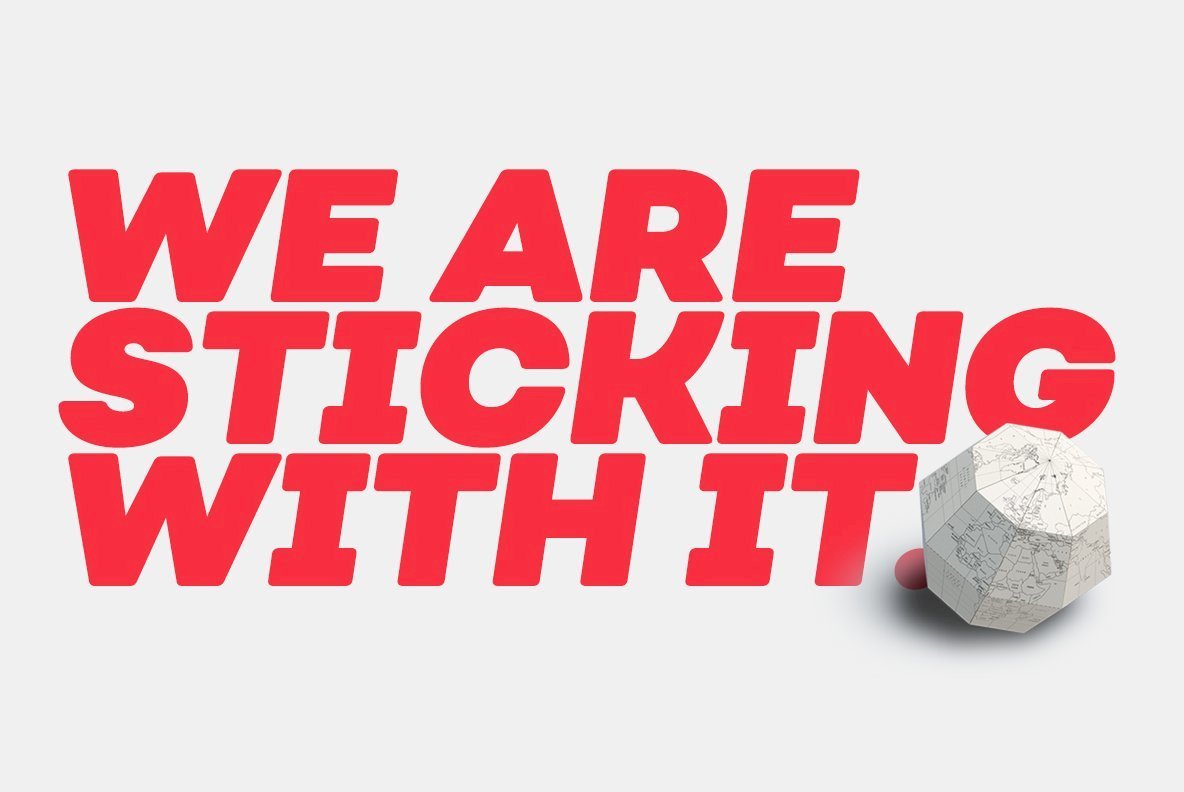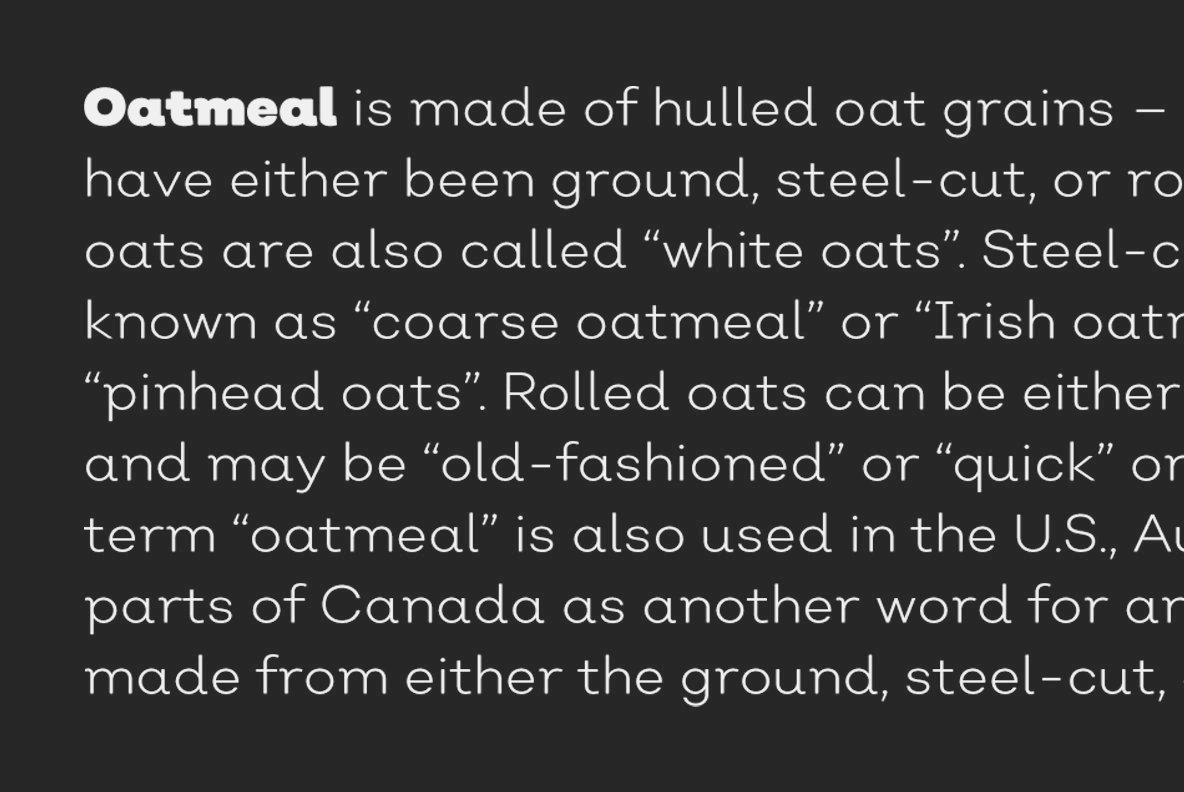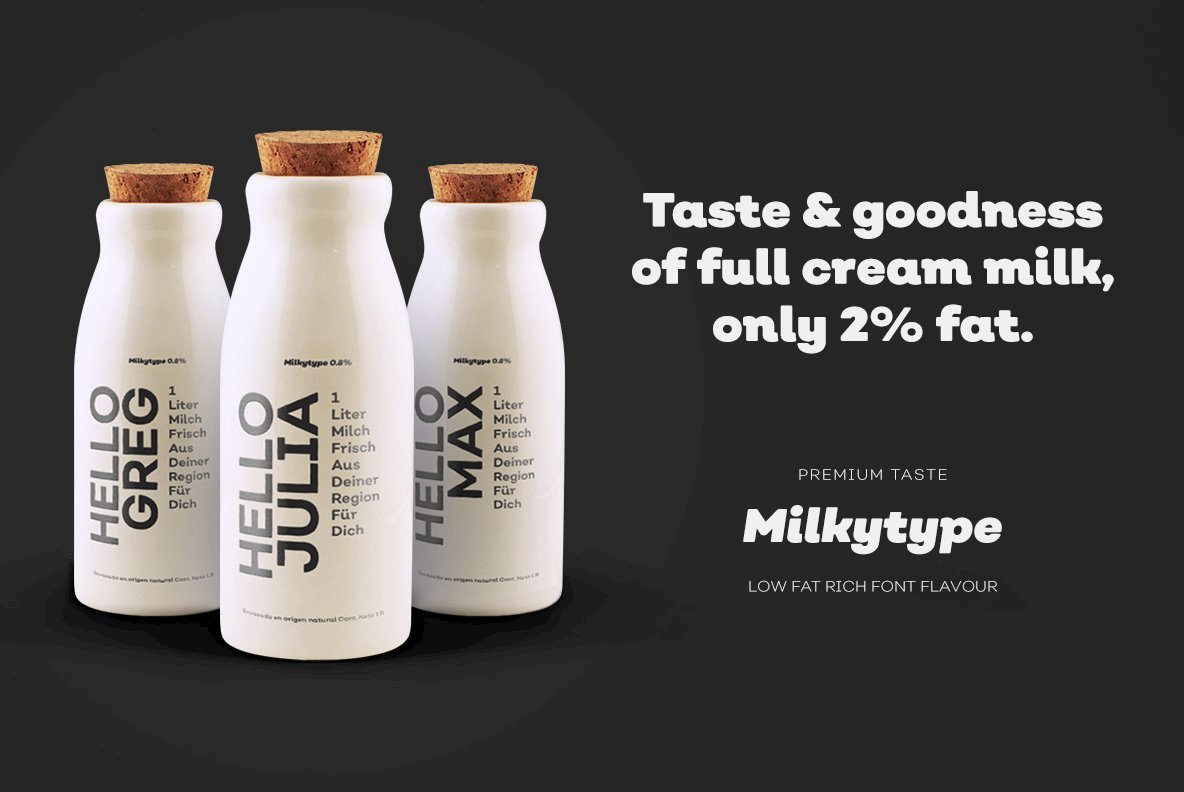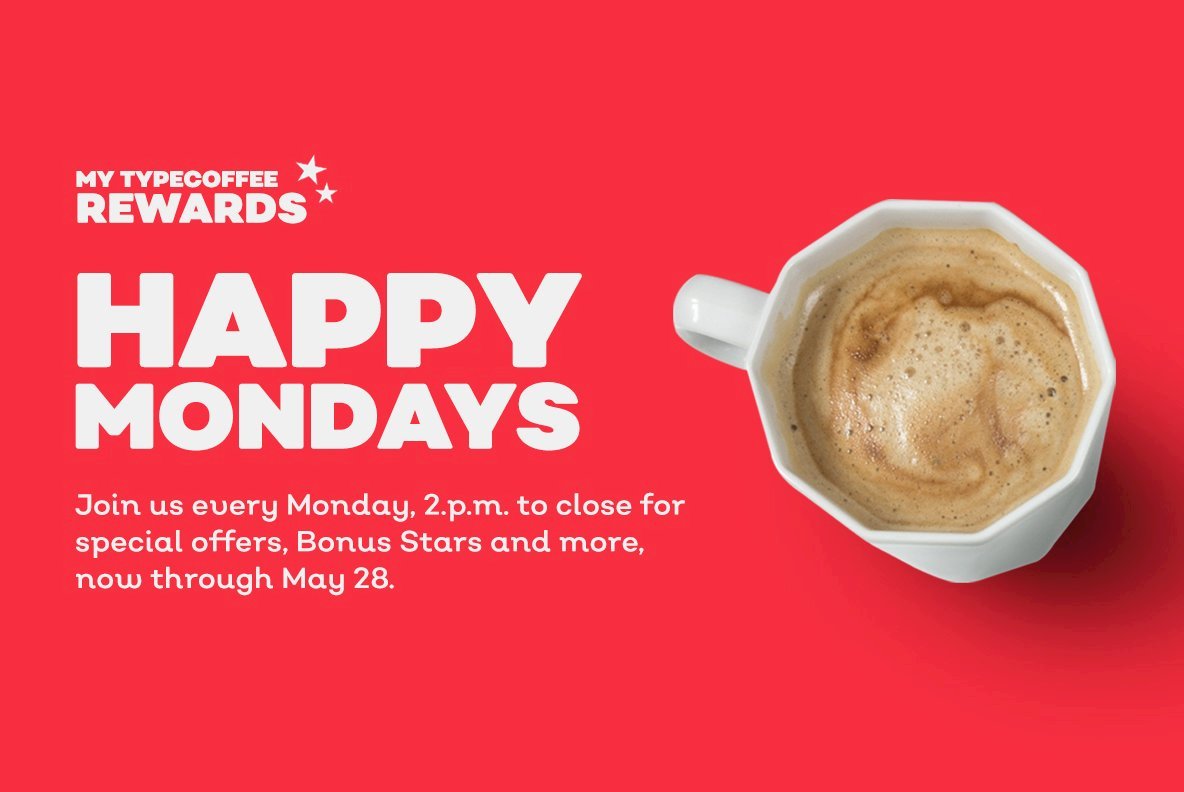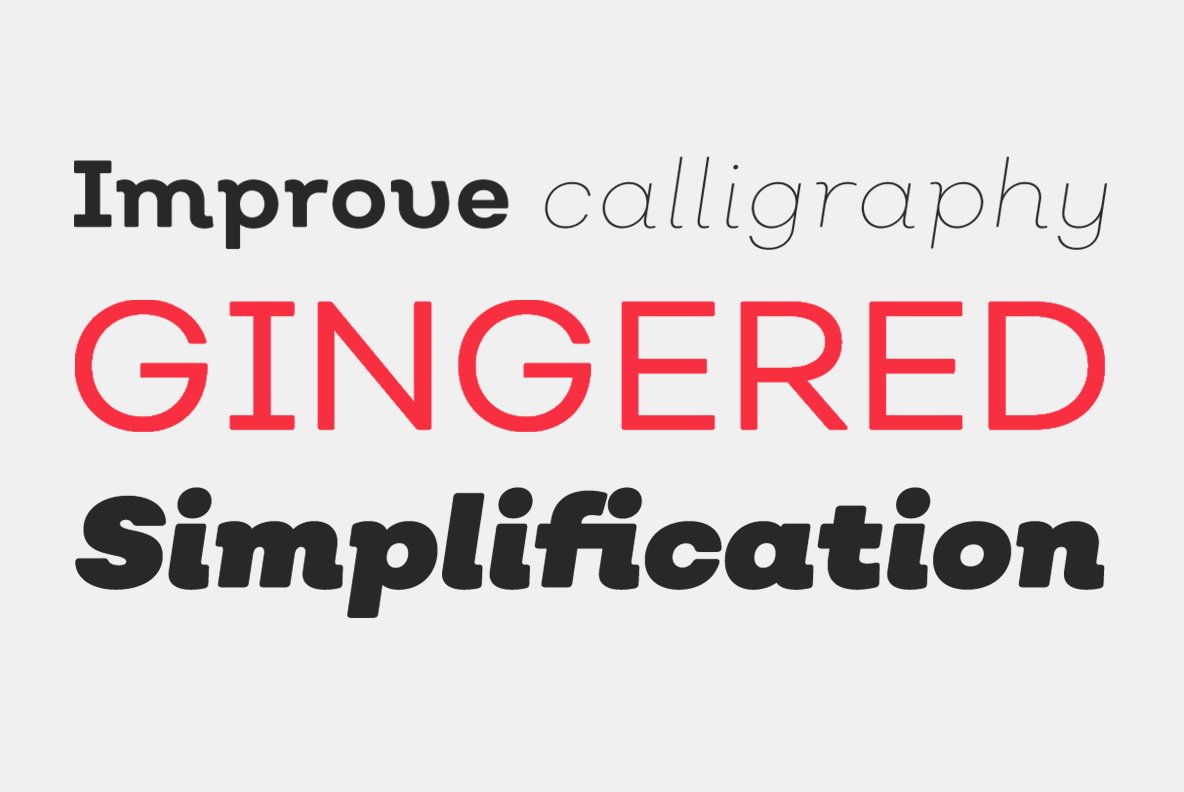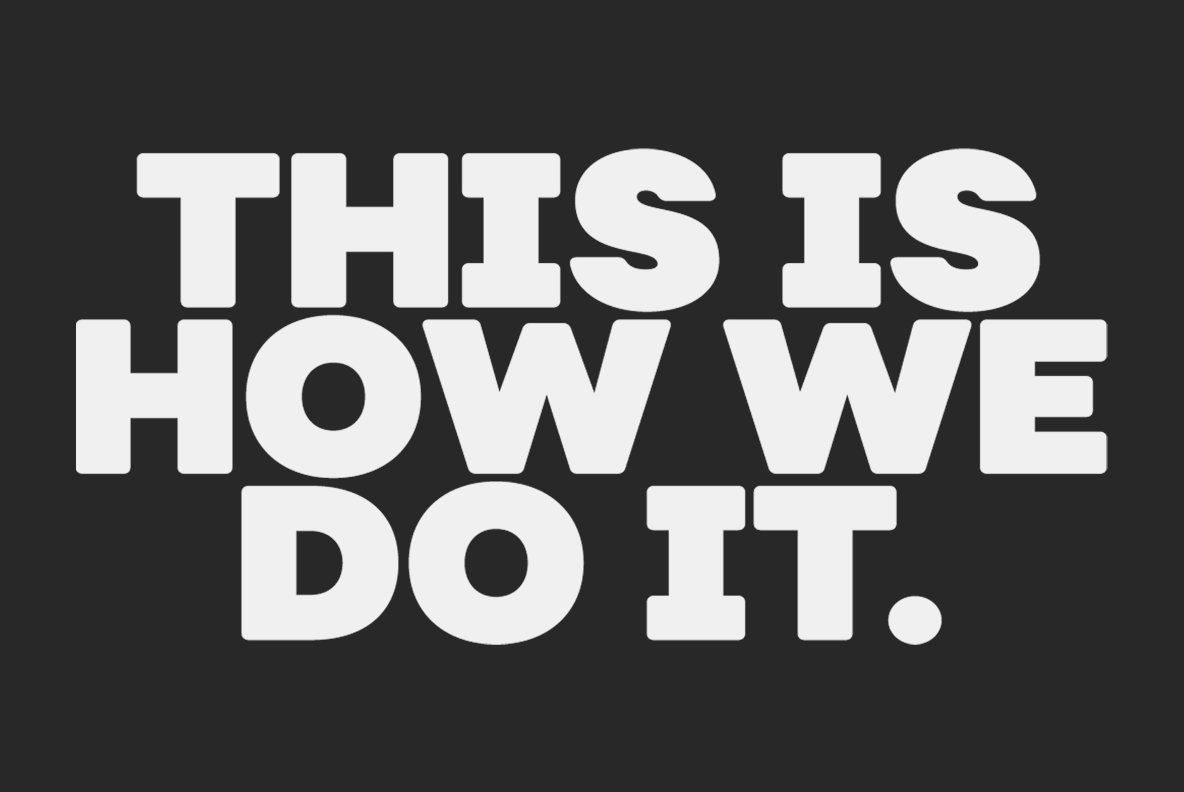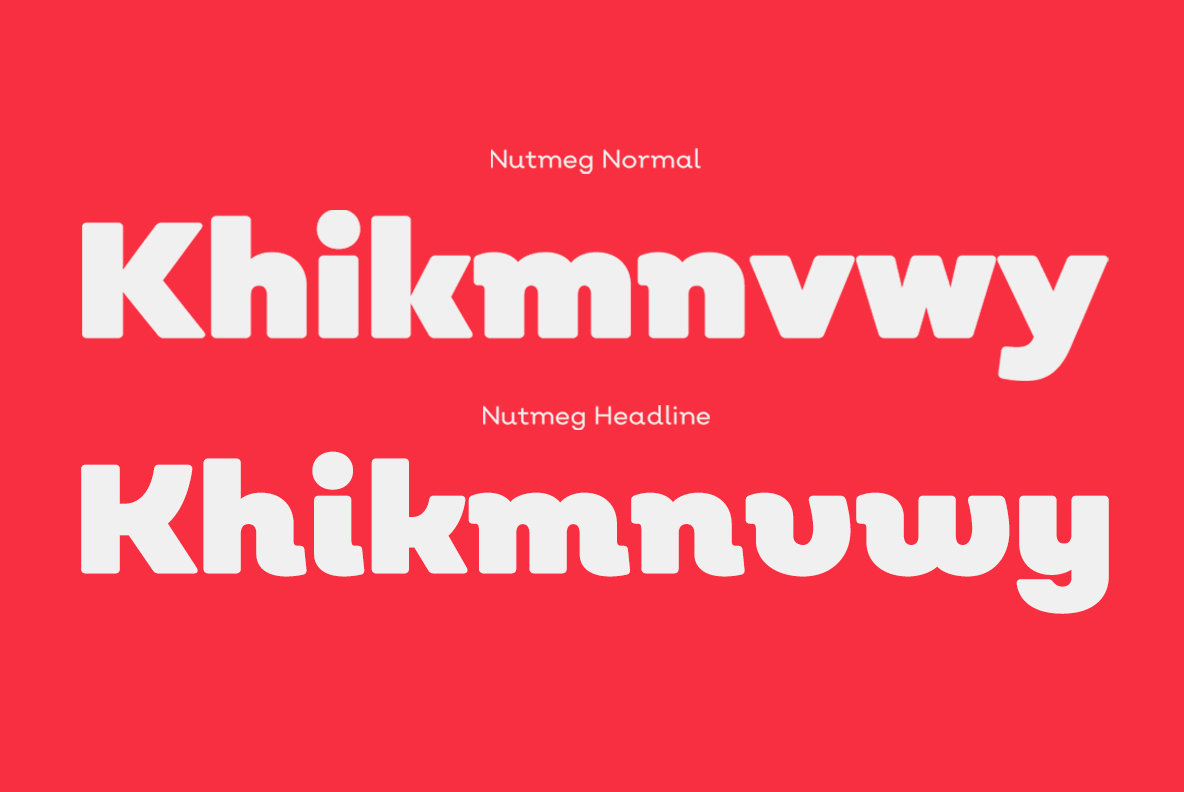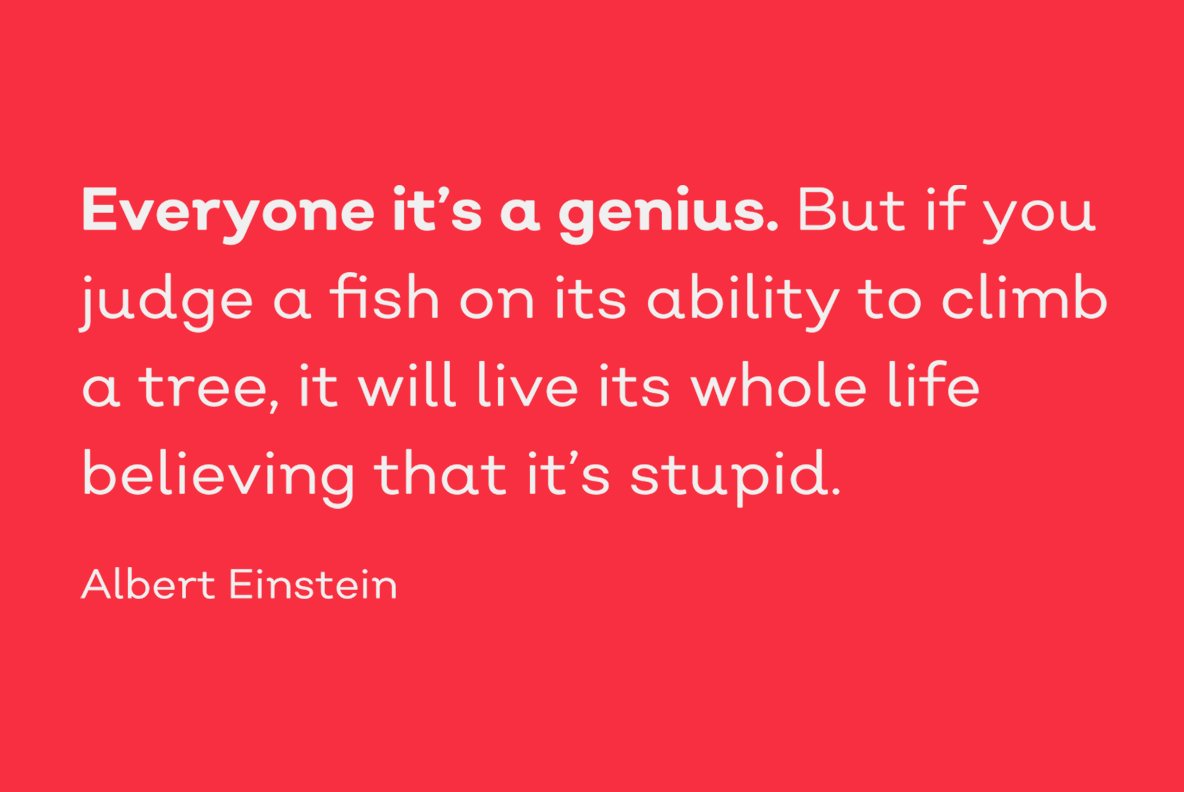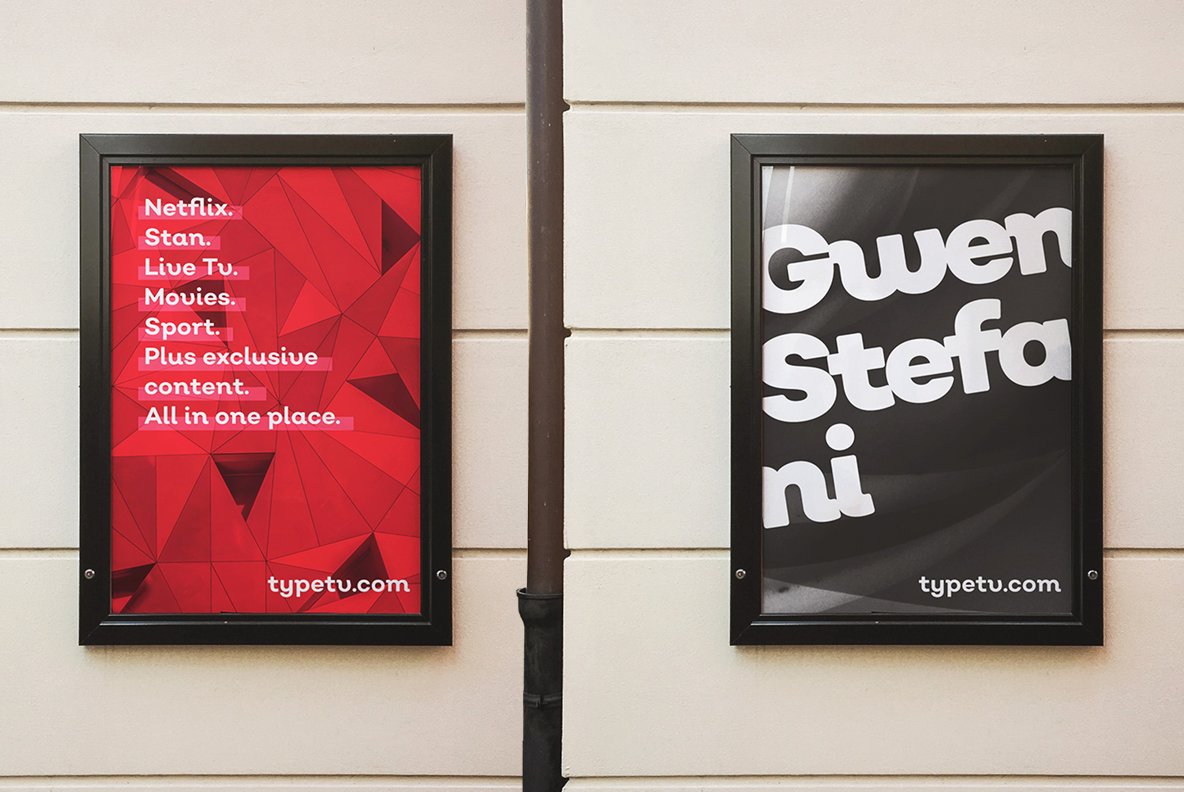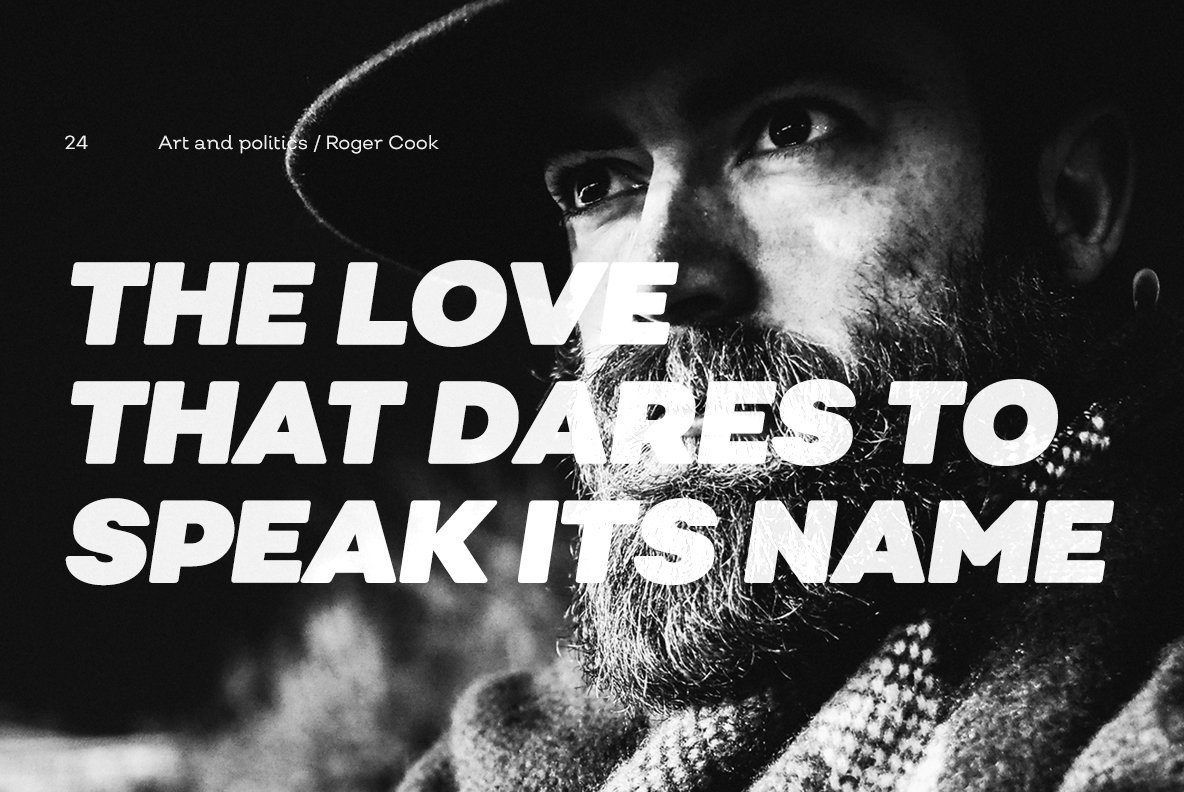
Nutmeg Font
Nutmeg is a geometric typeface with a slight flavored touch. Although its structure is stick to the traditional forms, its details transform this typeface in a boldly project that separates it from other geometric fonts. Nutmeg’s texture can be perceived as a clean typeface that is comfortable to the human eye, furthermore, if you use it in big sizes Nutmeg’s details can be seen as a display font. Under these two ways of perceiving this type family, we took the decision of split this type project in two families: a cleaner and more rational Nutmeg versus a Headline version that has more flavored details at the end of the characters.
Designed with powerful OpenType features in mind, each weight includes alternate characters, ligatures, fractions, special numbers, arrows, extended language support and many more… Perfectly suited for graphic design and any display/text use. The 36 fonts are the first part of a larger Nutmeg family.